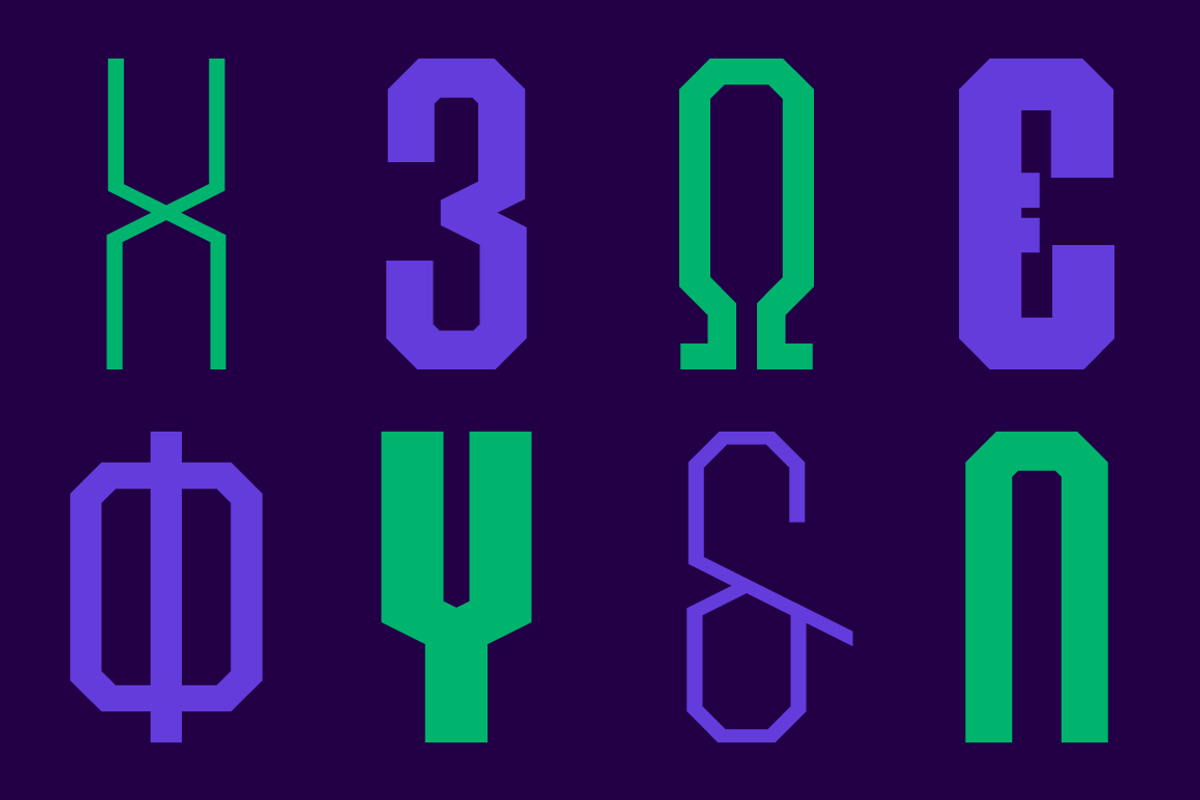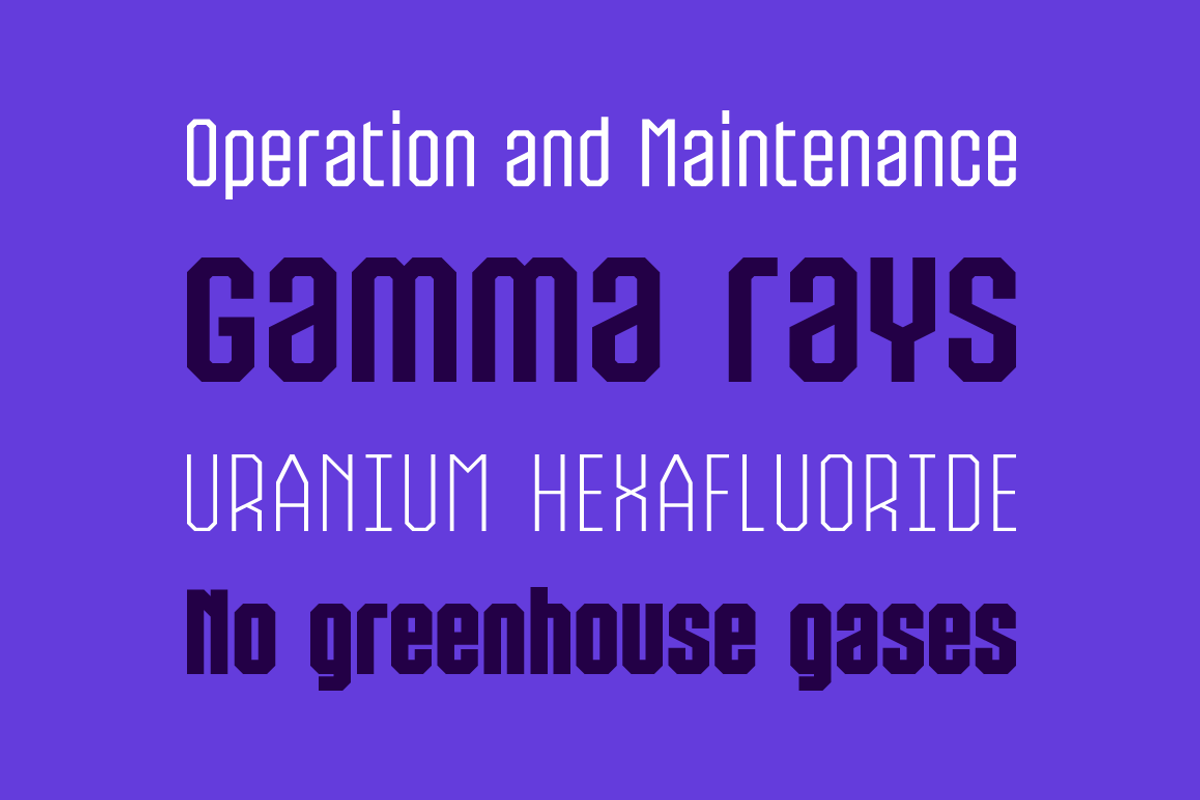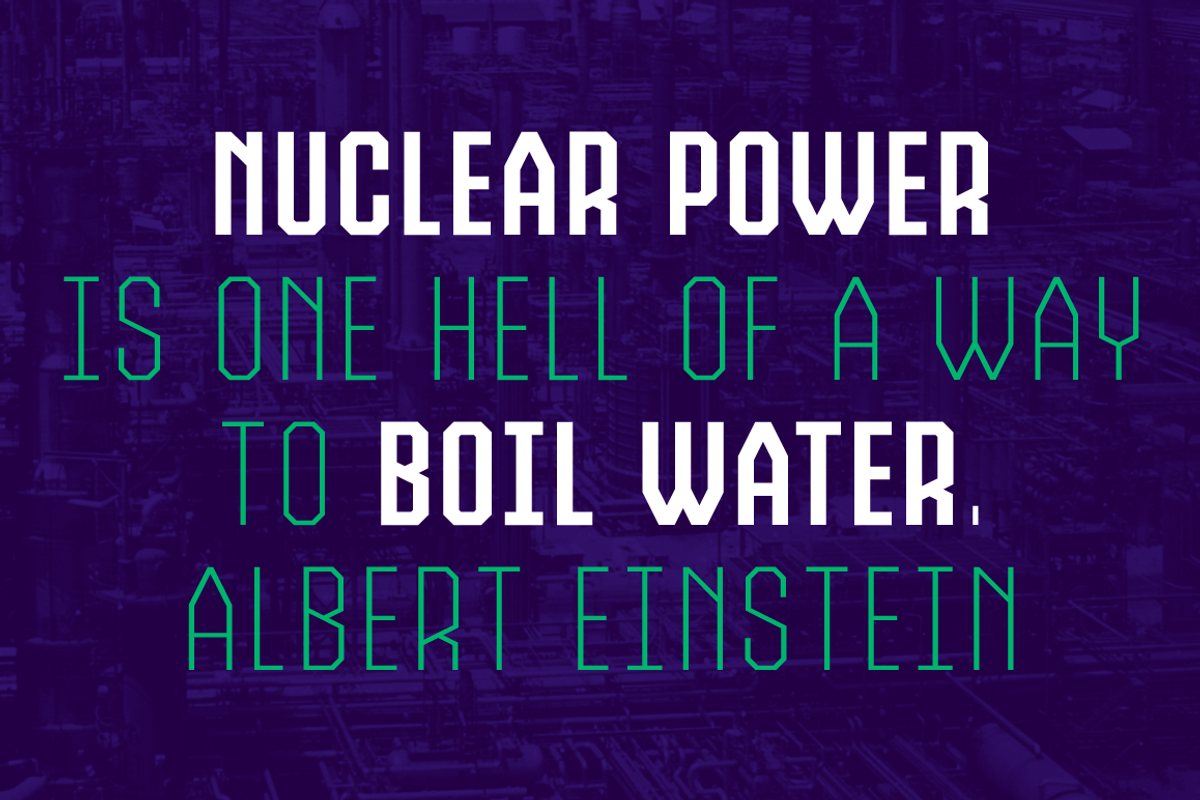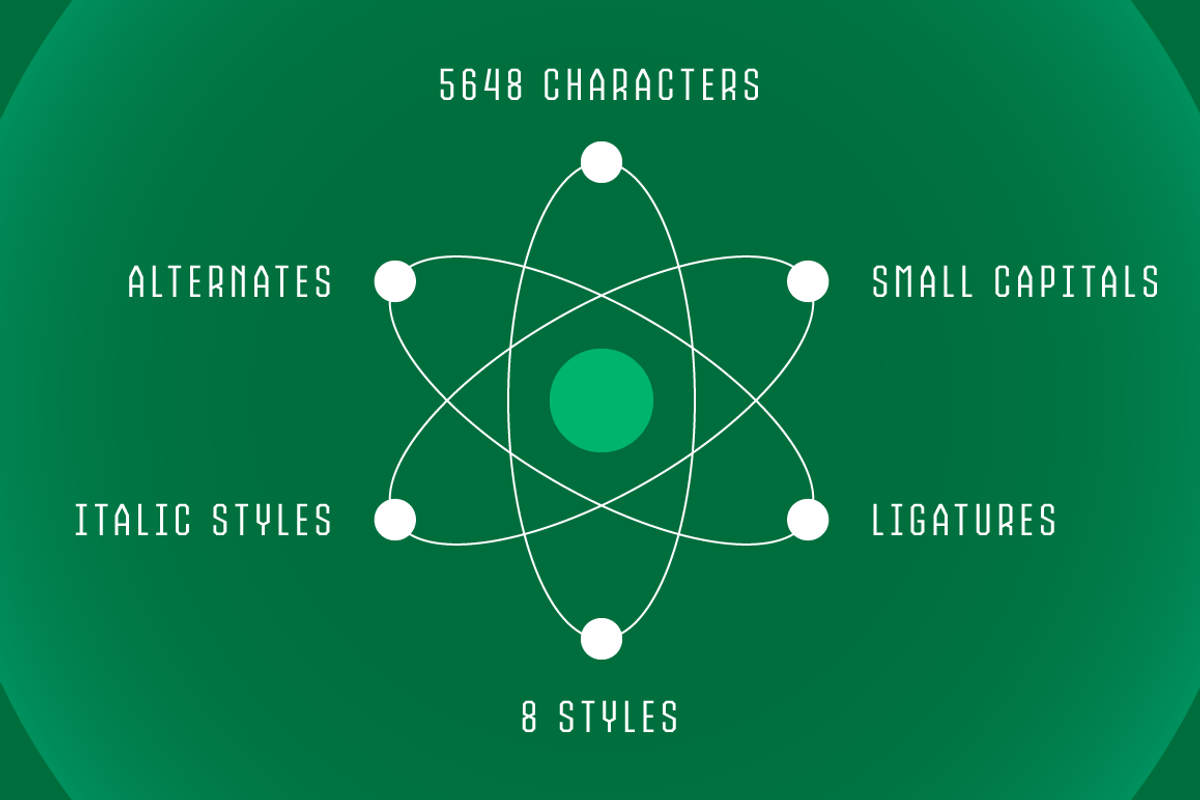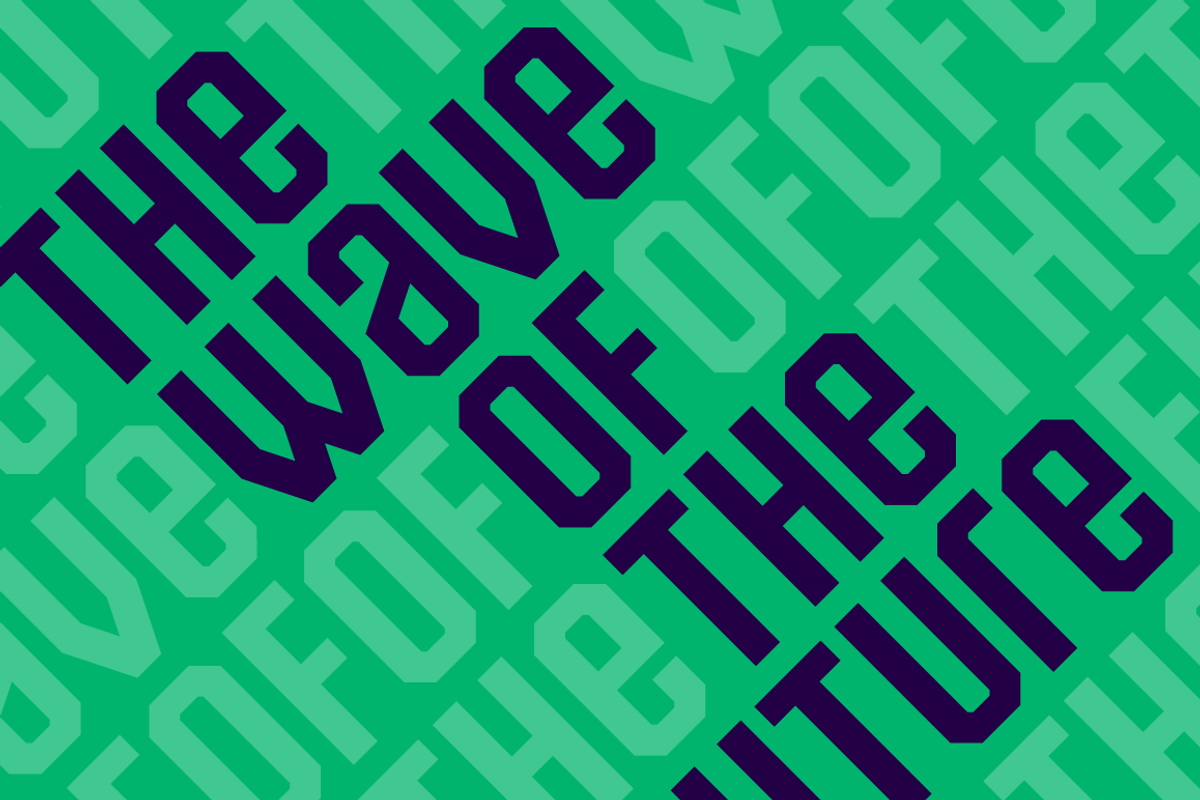
Fisionada Font Family
Designer: Pablo Balcells
Design date: 2023
Fisionada font family has been designed for Graviton Font Foundry by Pablo Balcells in 2023. It is a condensed sans serif typeface with sharp edges and a very technical aesthetics. Its condensed design makes it very effective for space economizing and its geometric features make it a very attractive choice for display usages such as futuristics logos, video games and sci-fi content. It has been conceived to be most suitable for headlines and short length text blocks.
Fisionada consists of 8 styles. Each containing small caps and glyph coverage for several languages.